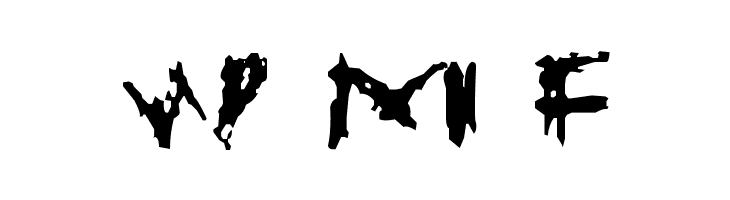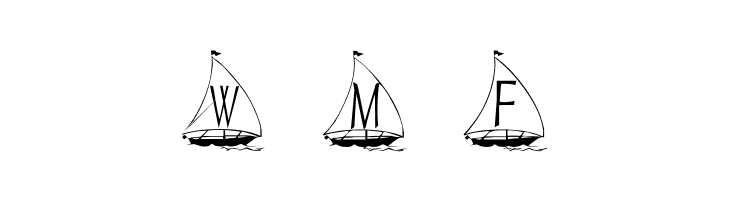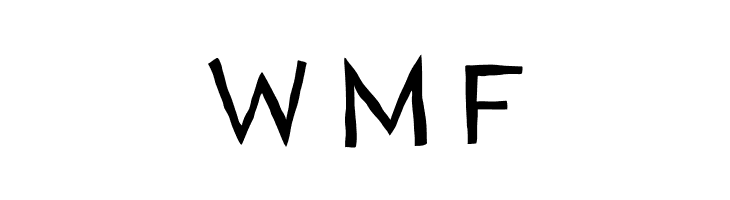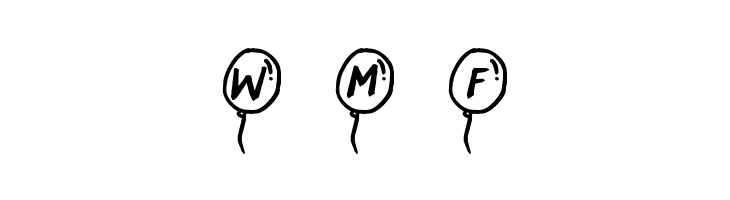
A decorative font with letters integrated into sailboat designs, perfect for nautical themes.
A playful, hand-drawn font with bold, irregular characters and whimsical details.
A distressed, grungy font with irregular, jagged edges and a chaotic aesthetic.
A playful, balloon-themed decorative font with a whimsical style.
A playful, balloon-themed font perfect for festive and joyful designs.